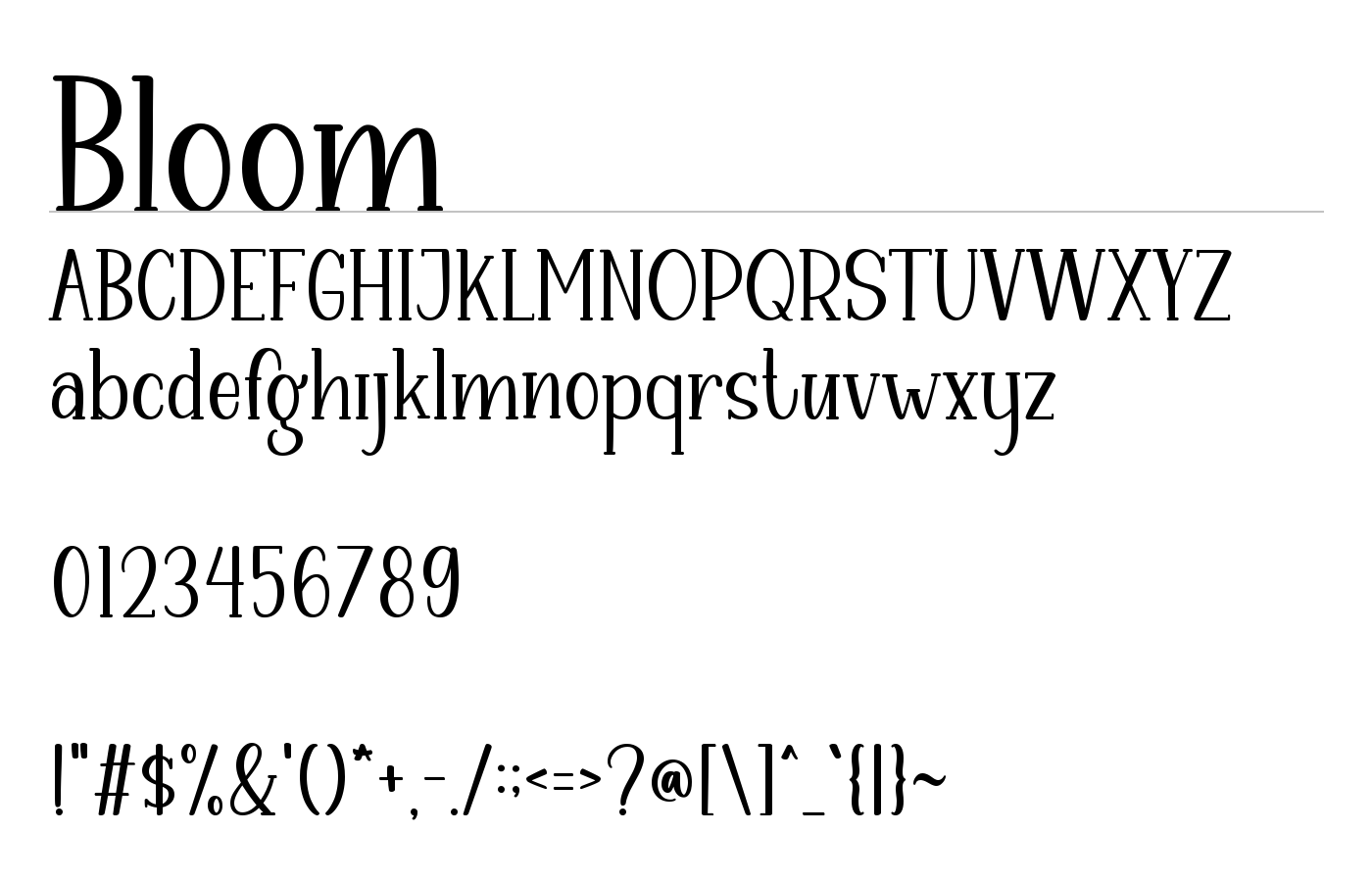
Bloom is a slender serif font with a refined, slightly whimsical character created by its high contrast strokes and elegant, bracketed serifs. Its narrow proportions and delicate letterforms give it a sophisticated yet approachable feel, making it ideal for stylish editorial layouts, fashion branding, and upscale invitations where a touch of modern elegance is desired. This font works beautifully in headlines and display text where its unique charm can shine without losing readability.
Bloom Font
About Bloom Font